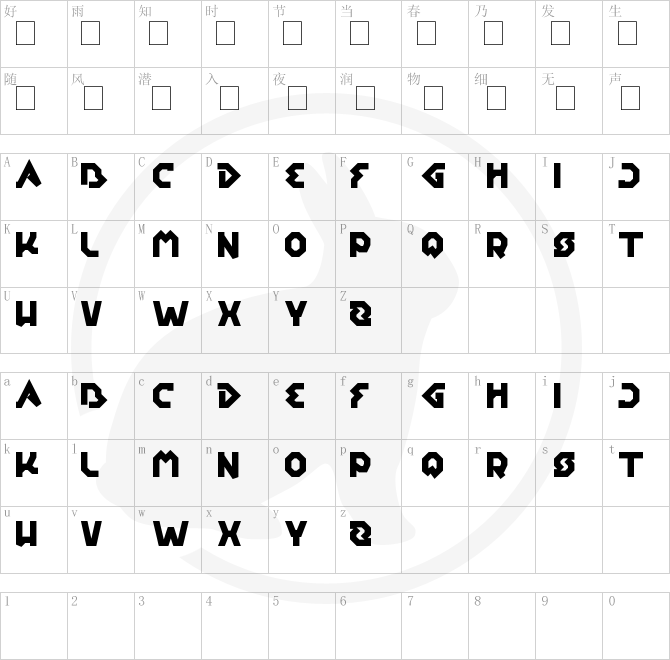
• Font Name:earth aircraft universe
earth-aircraft-universe.ttf is a very beautiful artistic font, earth-aircraft-universe.ttf is widely used in the design and printing of various books and pictures,earth-aircraft-universe.ttf has a strong visual impact,earth-aircraft-universe.ttf is a commonly used font in newspapers, magazines and books, and is used in posters, e-commerce Poster design, store design, logo design, font design and other fields.earth-aircraft-universe.